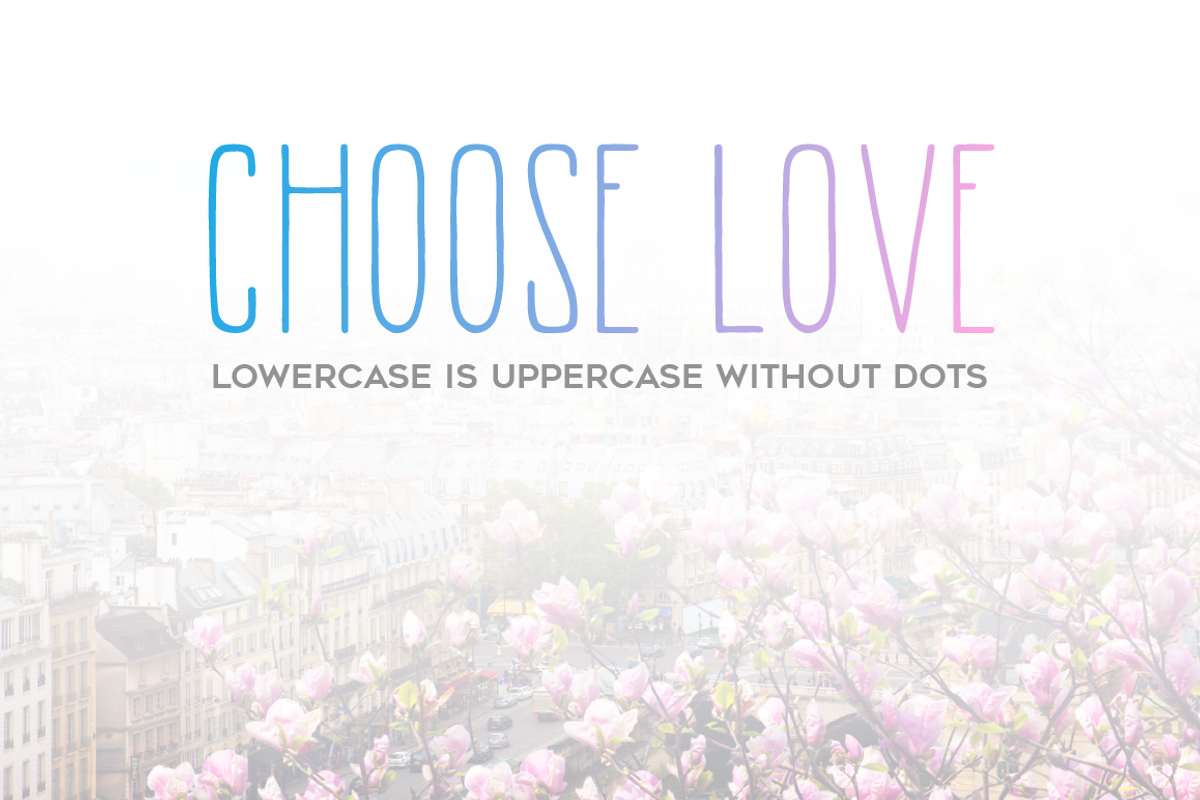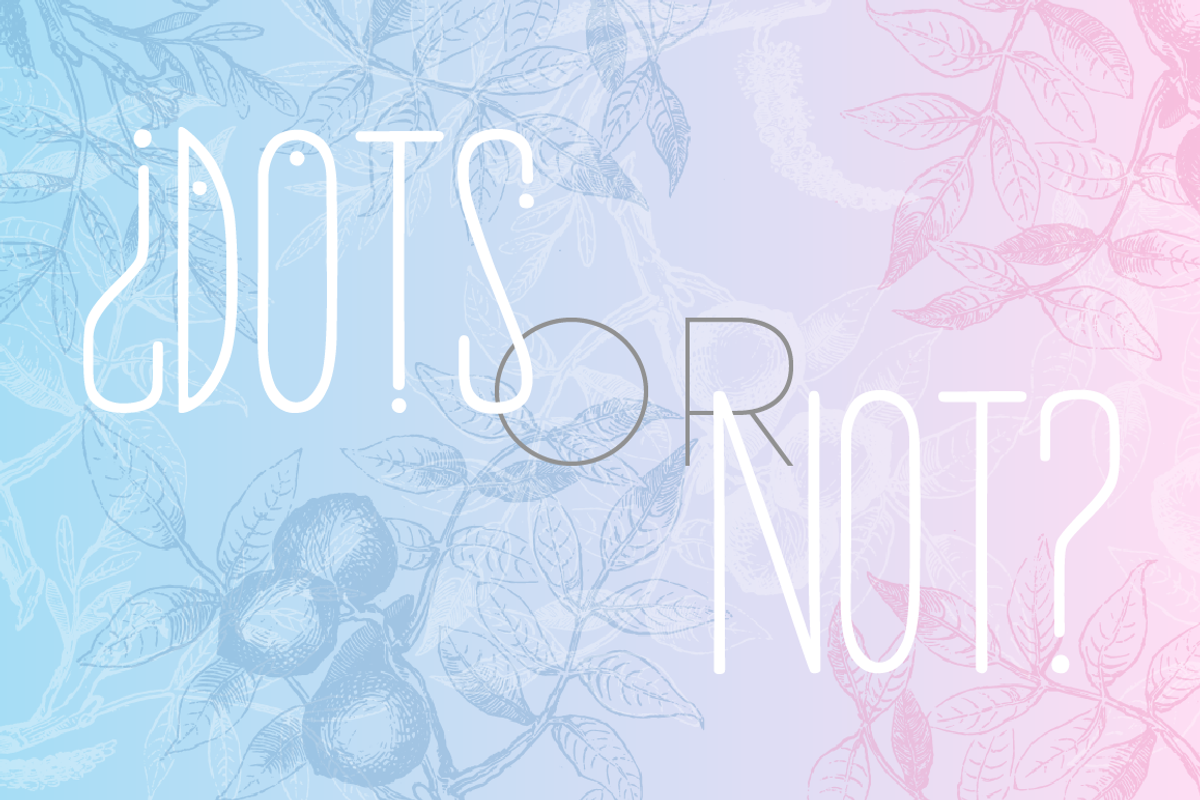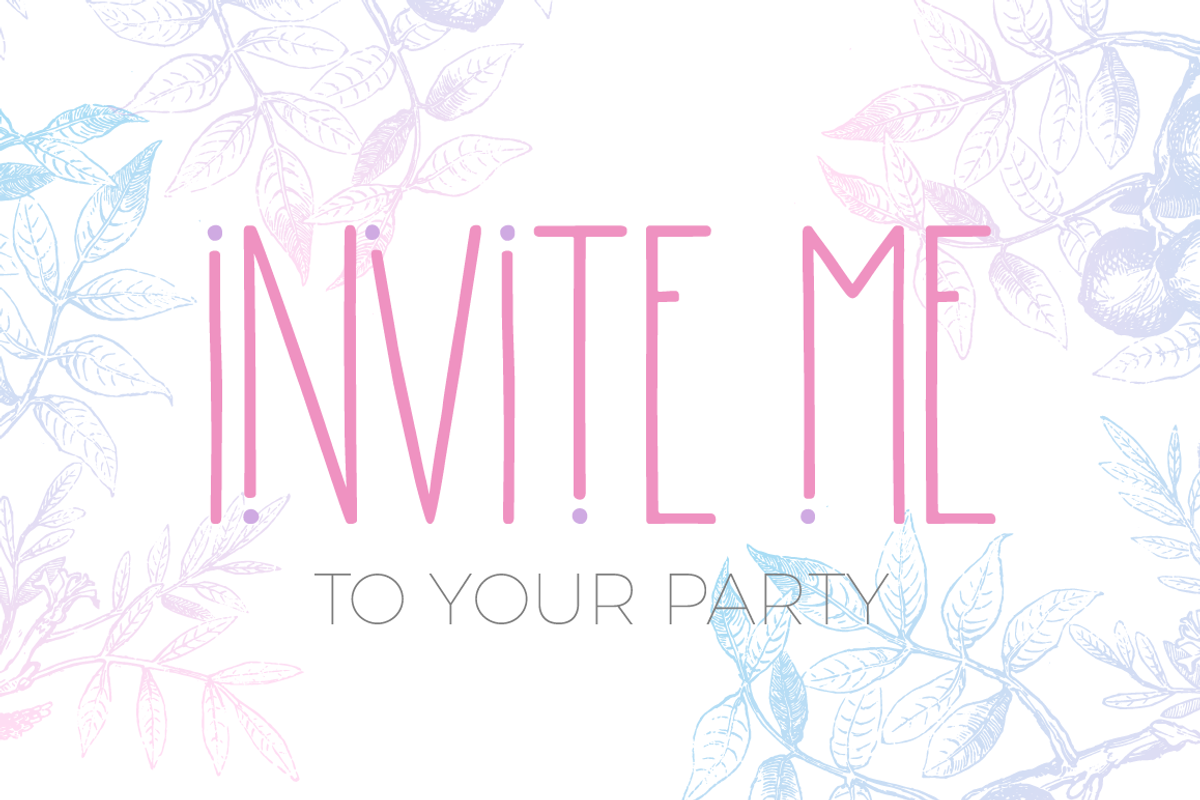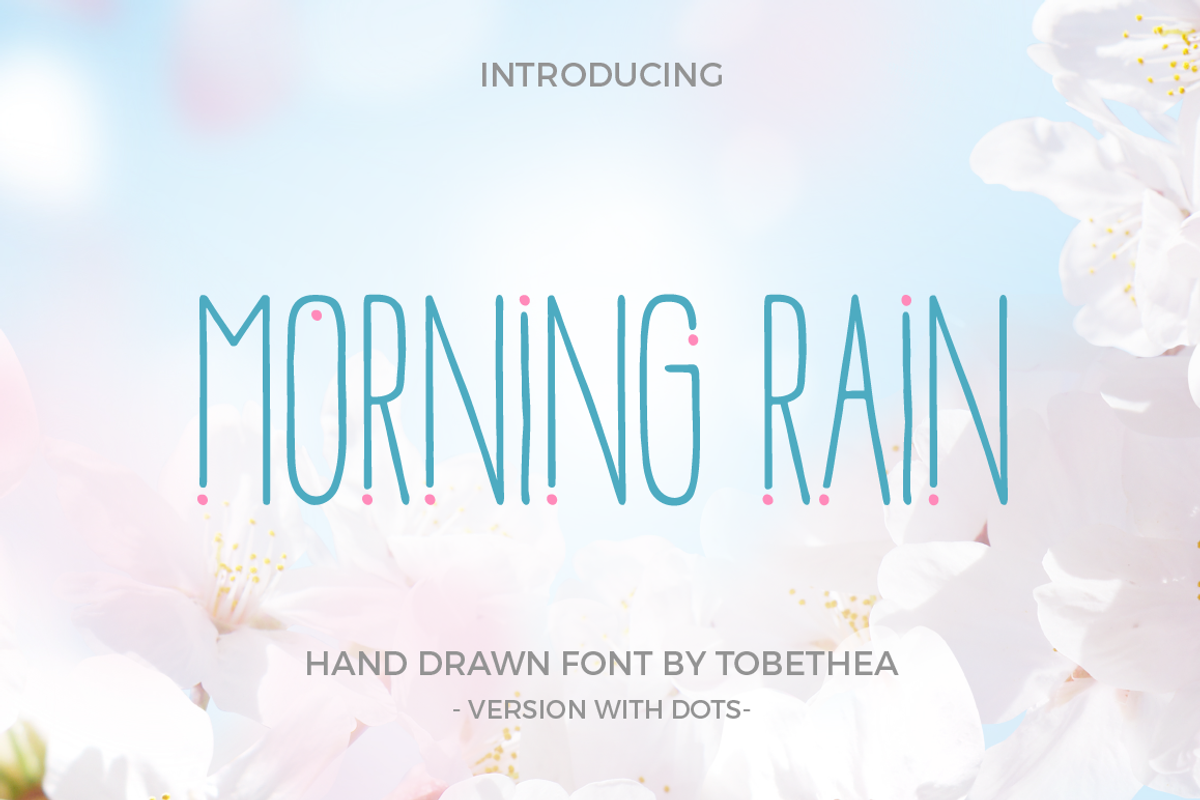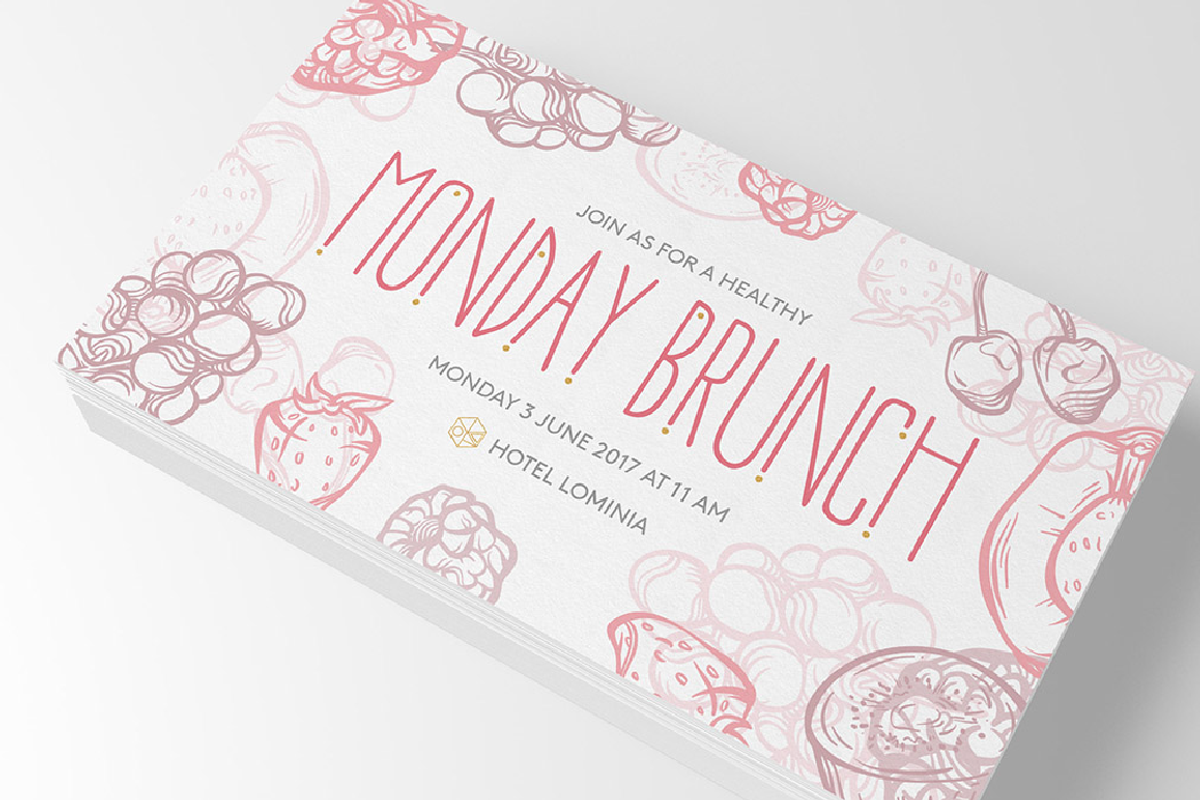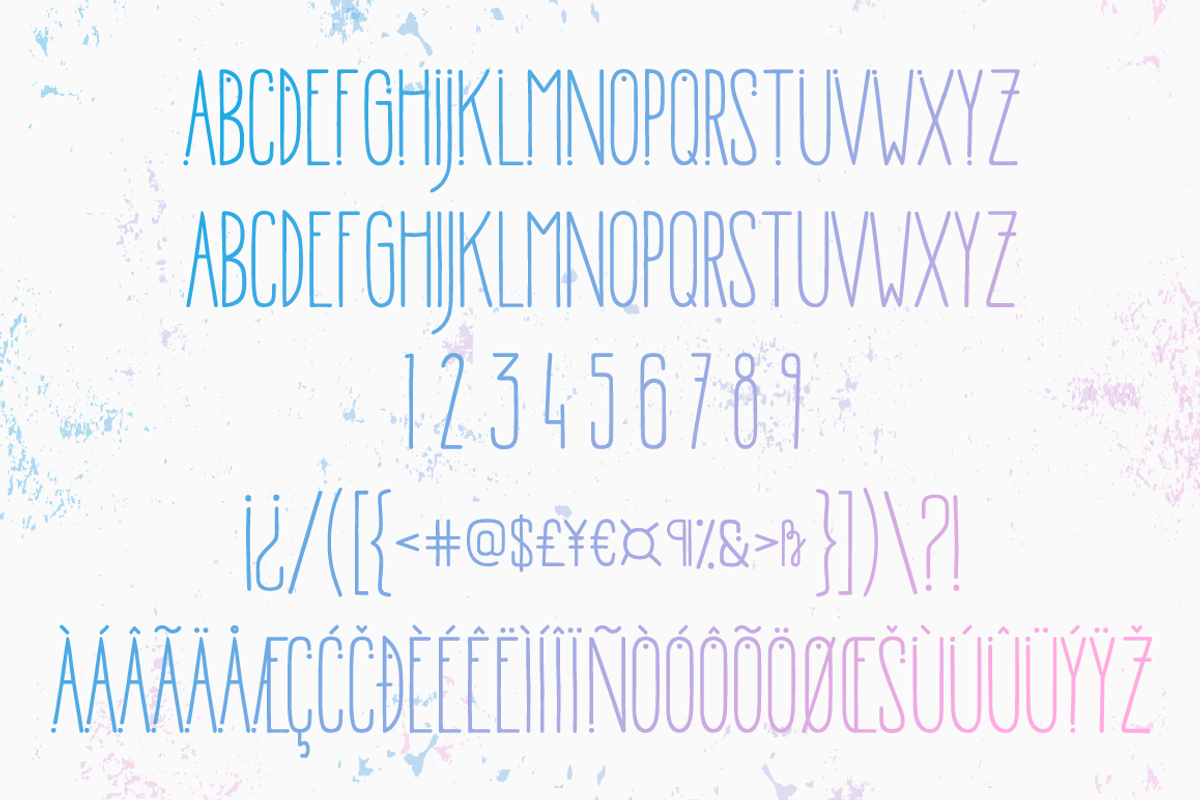
Morning Rain Dot Font
MorningRain is a cute handwritten font with stylish dots. It is very suitable for branding, merchandise, product packaging, name tags, quotes, business cards, invitations ... The font is best to use in big titles, headlines, etc. Try to color the dots in different color and make your title even cuter :)
MorningRain consist of uppercase letters (lowercase glyhps are uppercase without dots). Also includes glyphs for multilingual support.